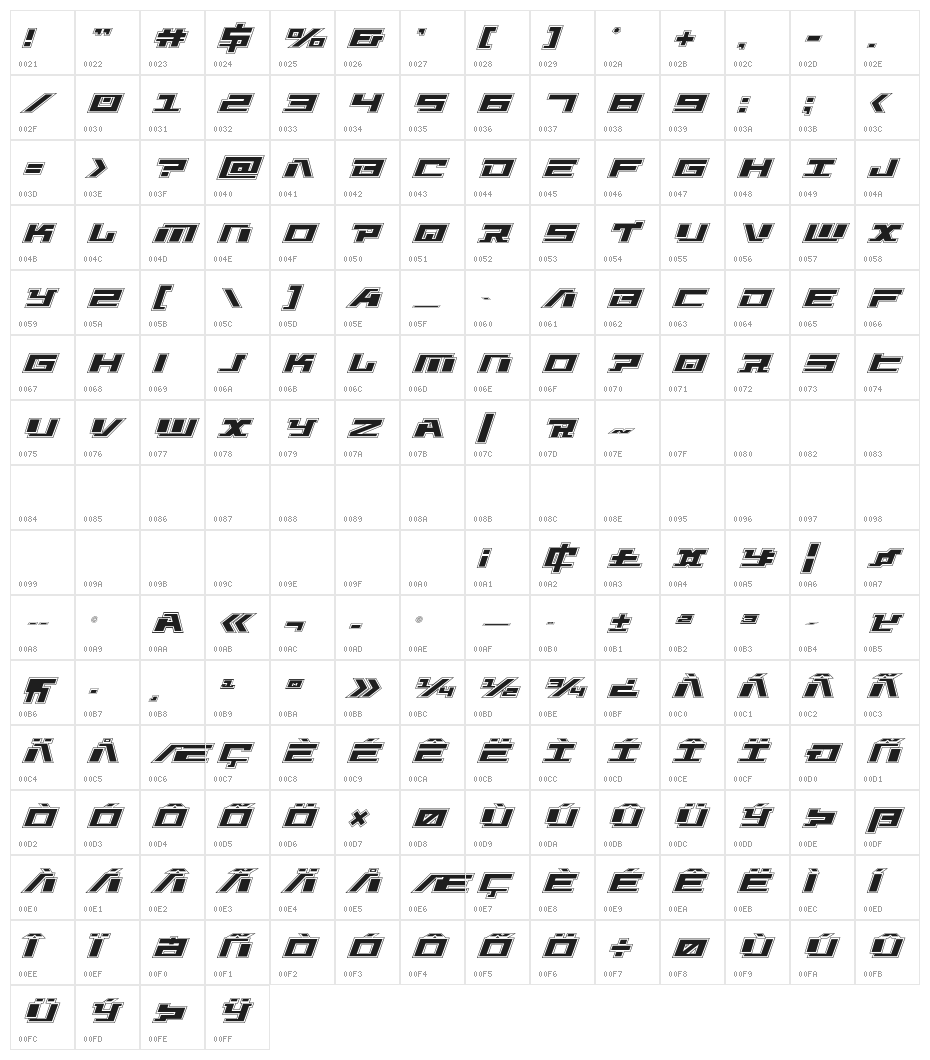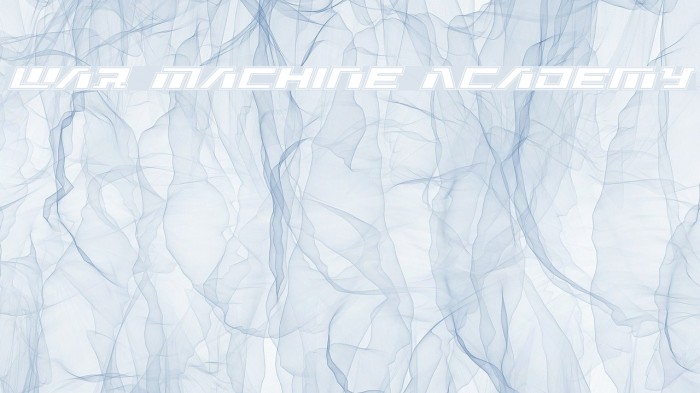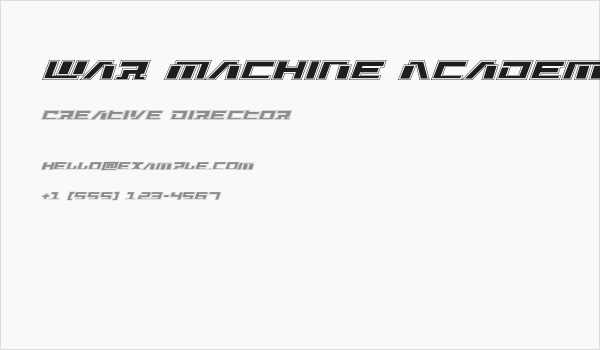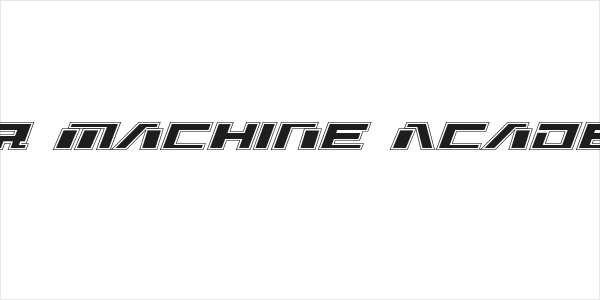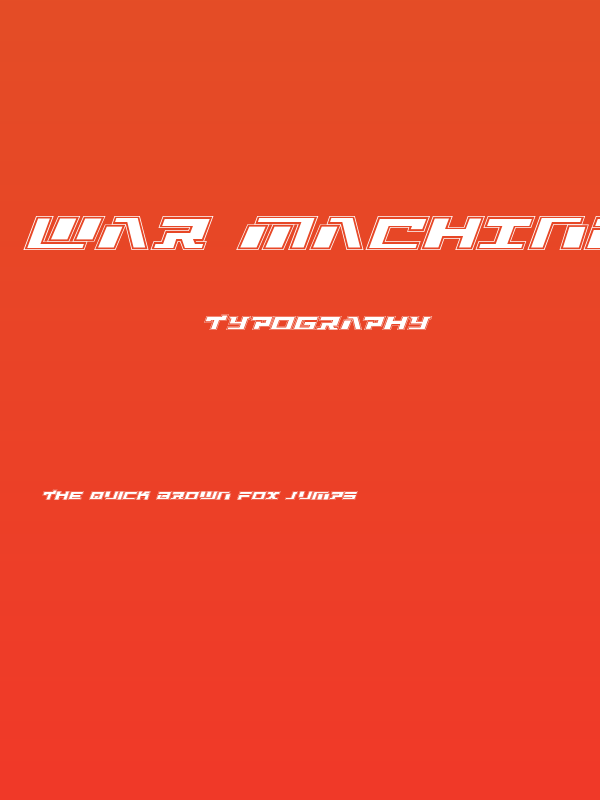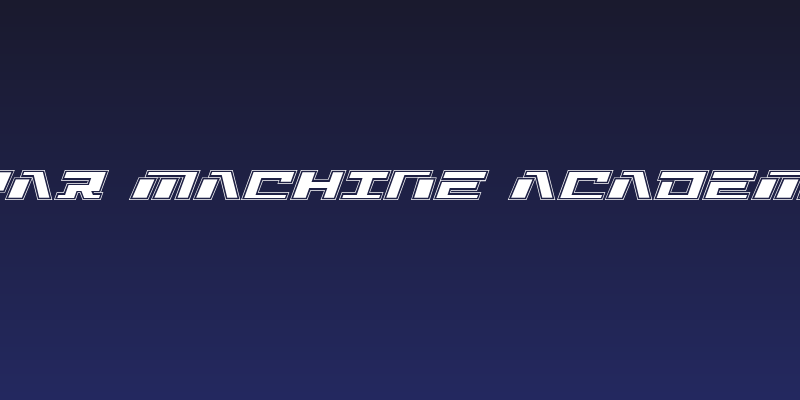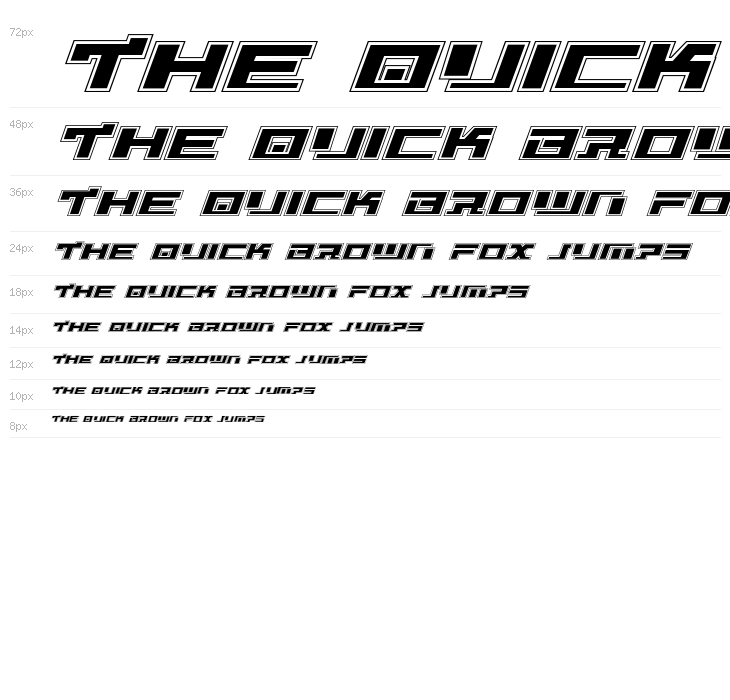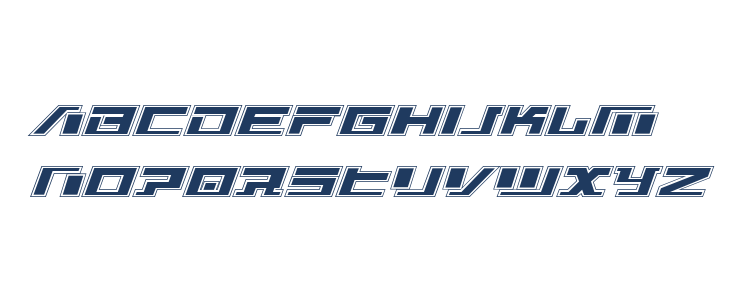
War Machine Academy Font
War Machine Academy Description
This font features a bold, futuristic design with sharp angles and a geometric structure. The characters are outlined, giving them a three-dimensional appearance that adds depth and dynamism. The uppercase and lowercase letters maintain a consistent style, with the lowercase slightly smaller but equally impactful. Numbers and special characters follow the same design principles, ensuring uniformity across all elements. The font's unique style makes it ideal for projects that require a modern and edgy look.
| Proposed Projects | Ideal for sci-fi themed designs, video game titles, tech branding, and modern posters. |